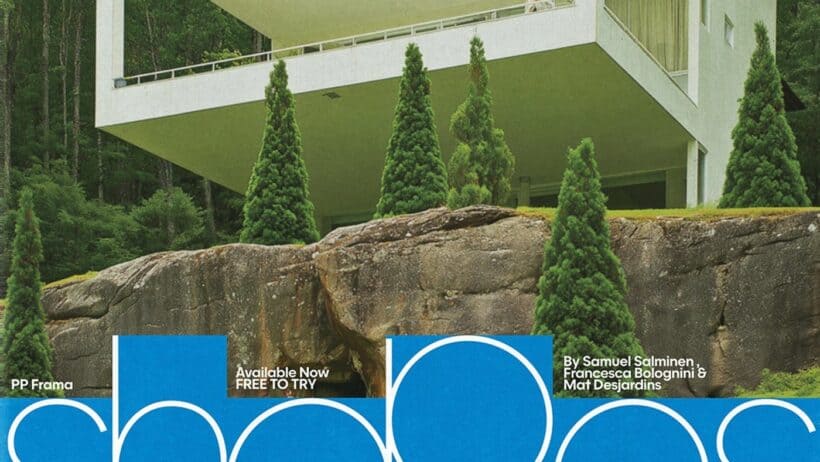
Why Designers Choose PP Frama, Pangram Pangram’s Versatile Geometric Typeface
PP Frama merges Futura geometry with Avant Garde weight, offering calm, precise letterforms and optical tweaks, shining from text to display
Frama, Geometry with Calm Confidence
As a branding content curator, I endorse Pangram Pangram’s PP Frama release. It blends clean Futura geometry with a calm modernist rhythm, creating versatile letterforms. Round bowls meet sharp points, giving each glyph confident clarity on page and signage. Designers will appreciate the optical refinements that ensure readability at small sizes. Try the free trial files to test weights across real layouts, before committing.
The type family balances simplicity with personality, working from thin to black weights. Open counters and centered crossbars keep text airy, while display sizes feel sculpted and lively. Project posters and metal signage show the font’s presence, and subtle optical tweaks aid legibility. This makes PP Frama ideal for brand systems that need one coherent family across multiple touchpoints. A must explore. Today.